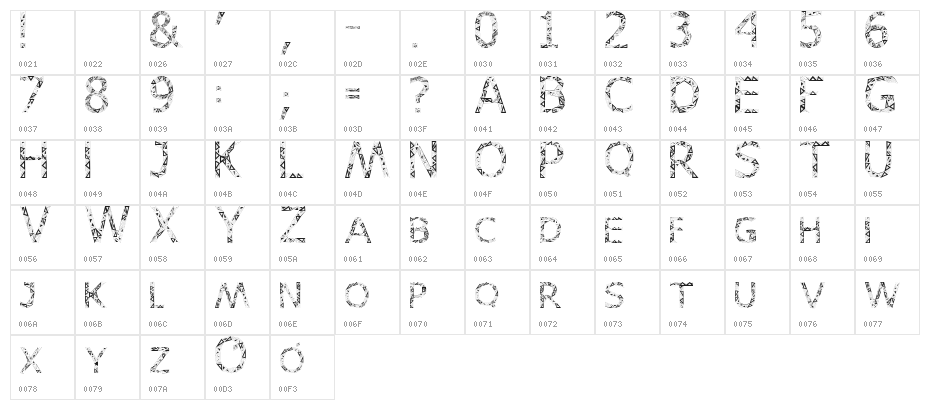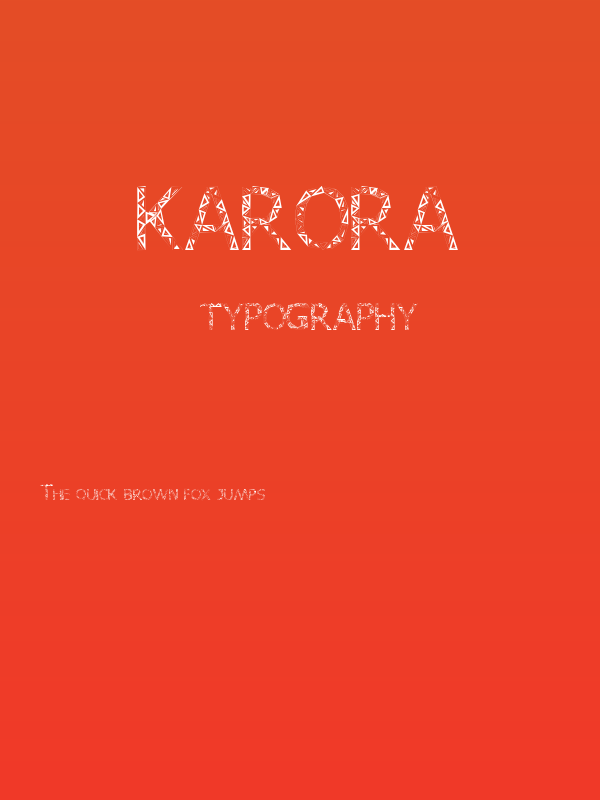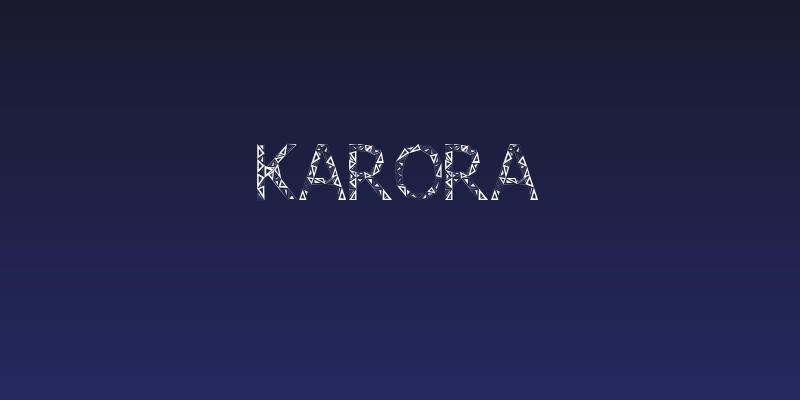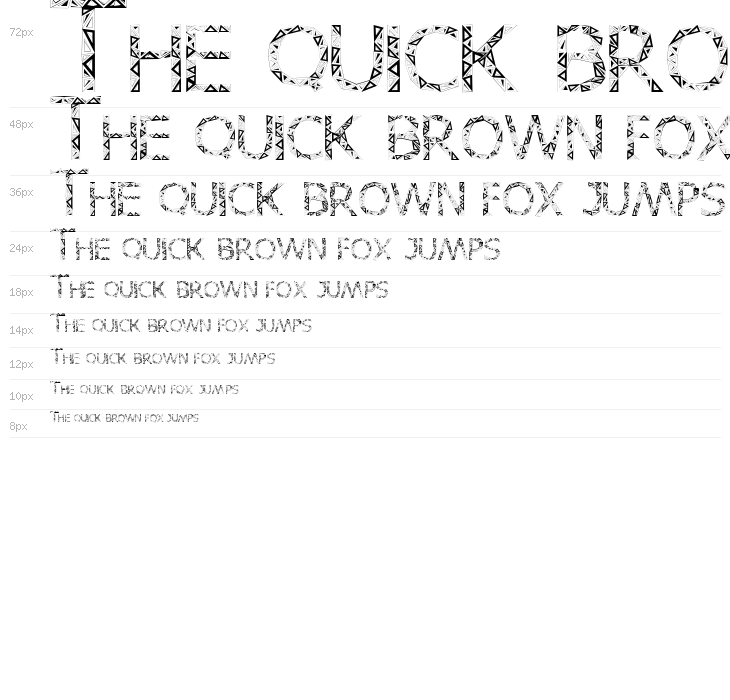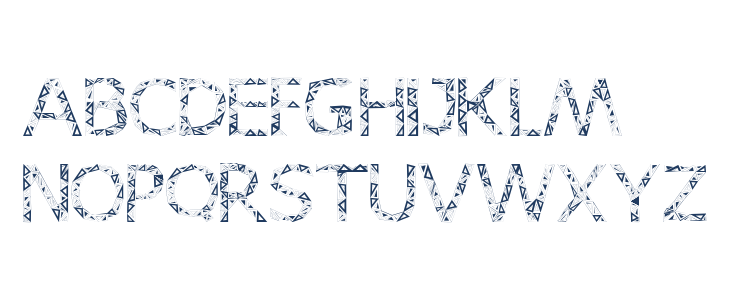
karora Font
karora Description
This font features a unique and intricate design with a geometric pattern filling each character. The letters are composed of various triangular shapes, creating a mosaic-like appearance. This decorative style gives the font a dynamic and artistic feel, making it stand out with its bold and creative structure. The uppercase and lowercase letters maintain consistency in style, while the numbers and special characters follow the same geometric pattern, ensuring a cohesive look across all elements. The font's distinctiveness makes it suitable for projects that require a touch of creativity and flair.
| Overall Style | Modern, Artistic |
| Proposed Projects | Ideal for artistic posters, creative branding, unique invitations, and eye-catching headlines. |